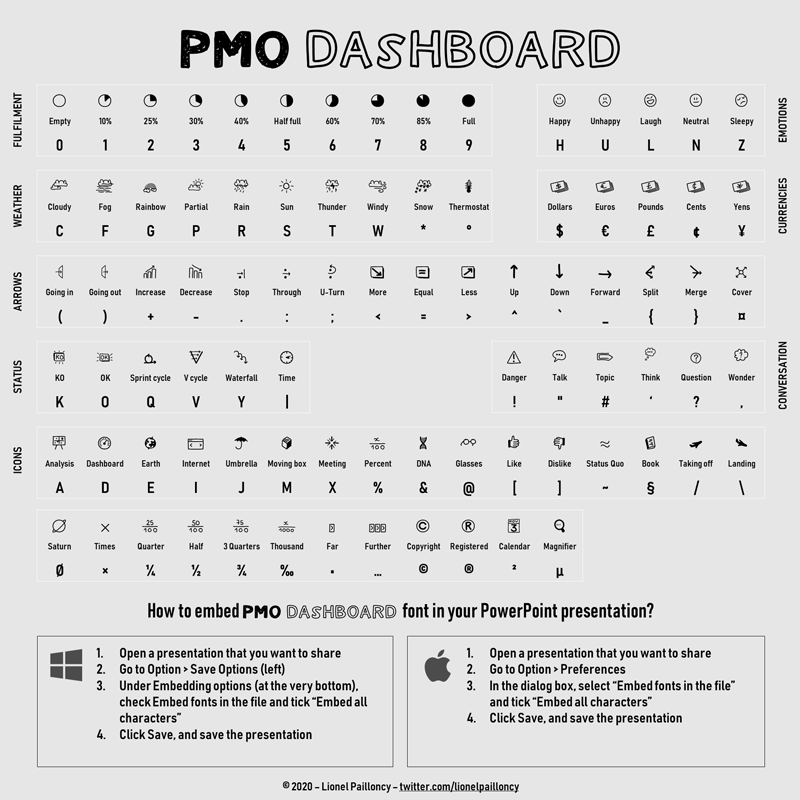
Font name: | PMO Dashboard |
Author: | Lionel Pailloncy |
Note by Lionel Pailloncy | |
PMO Dashboard is a smart way to refresh your report presentations and illustrate your dashboards with clean and aligned icons. The font comes with a cheat-sheet to master its use. Have fun! |